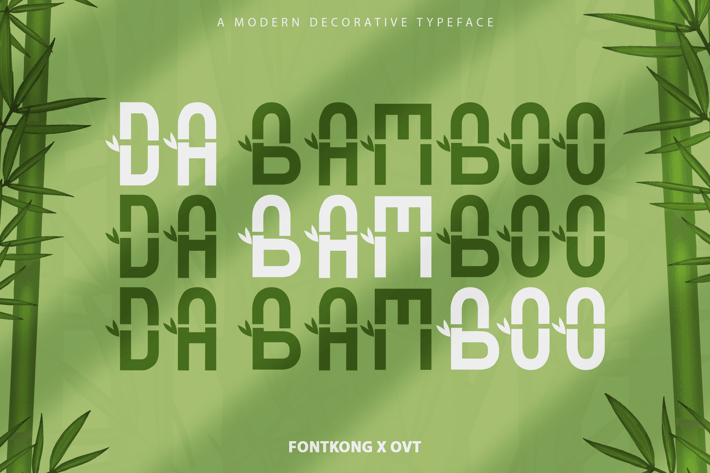
Da Bamboo - Modern Decorative Typeface
Introducing "Da Bamboo," a modern decorative typeface that blends natural elegance with contemporary style. Perfect for graphic designers, illustrators, and creatives looking to add an organic touch to their projects, Da Bamboo offers a unique aesthetic inspired by the beauty and versatility of bamboo.
Ideal for branding, packaging, posters, logos, and invitations, Da Bamboo’s distinctive and intricate characters evoke a sense of nature and sophistication. Each letter is thoughtfully designed to provide an elegant yet playful appearance, ensuring your designs stand out with a fresh and artistic flair.
The "Da Bamboo" font includes a full set of uppercase and lowercase letters, numbers, punctuation marks, and special characters. This versatile set allows for seamless integration into various design applications, from eco-friendly branding to stylish editorial layouts.
Embrace the beauty of nature with Da Bamboo, the modern decorative typeface that brings a touch of organic elegance to any design.
Introducing "Da Bamboo," a modern decorative typeface that blends natural elegance with contemporary style. Perfect for graphic designers, illustrators, and creatives looking to add an organic touch to their projects, Da Bamboo offers a unique aesthetic inspired by the beauty and versatility of bamboo.
Ideal for branding, packaging, posters, logos, and invitations, Da Bamboo’s distinctive and intricate characters evoke a sense of nature and sophistication. Each letter is thoughtfully designed to provide an elegant yet playful appearance, ensuring your designs stand out with a fresh and artistic flair.
The "Da Bamboo" font includes a full set of uppercase and lowercase letters, numbers, punctuation marks, and special characters. This versatile set allows for seamless integration into various design applications, from eco-friendly branding to stylish editorial layouts.
Embrace the beauty of nature with Da Bamboo, the modern decorative typeface that brings a touch of organic elegance to any design.